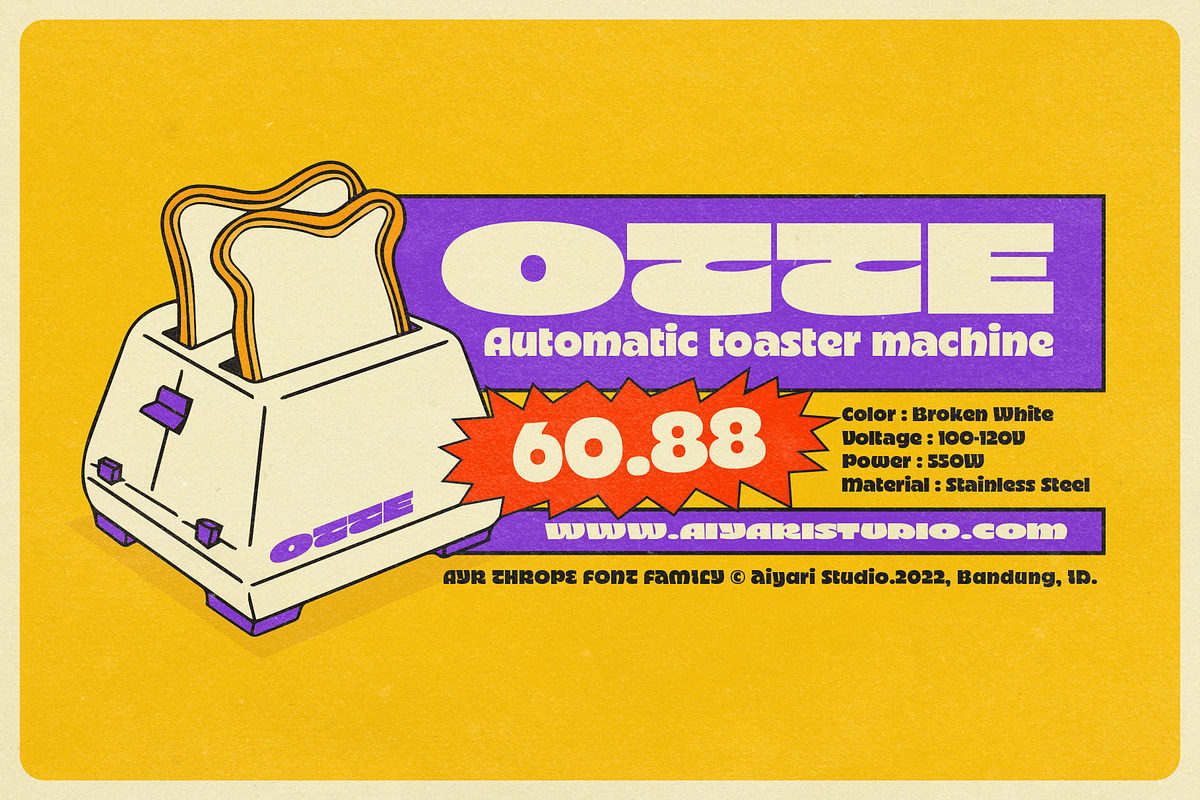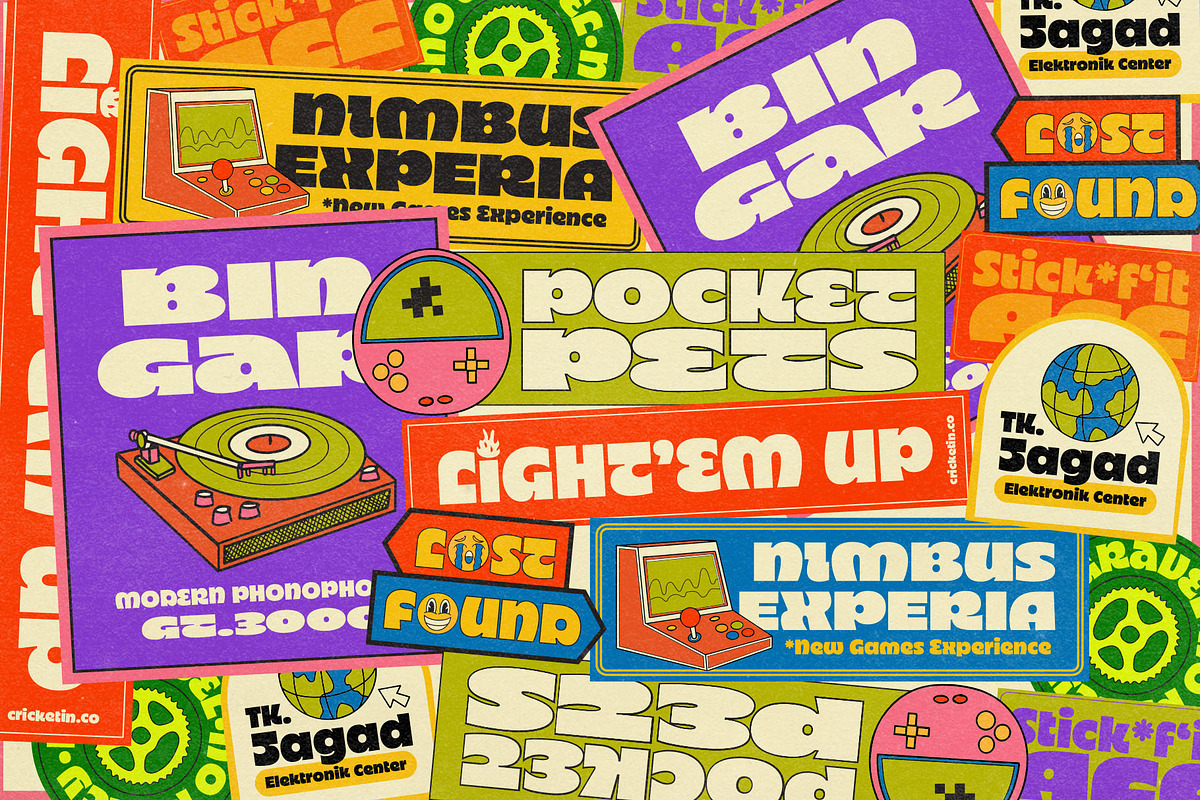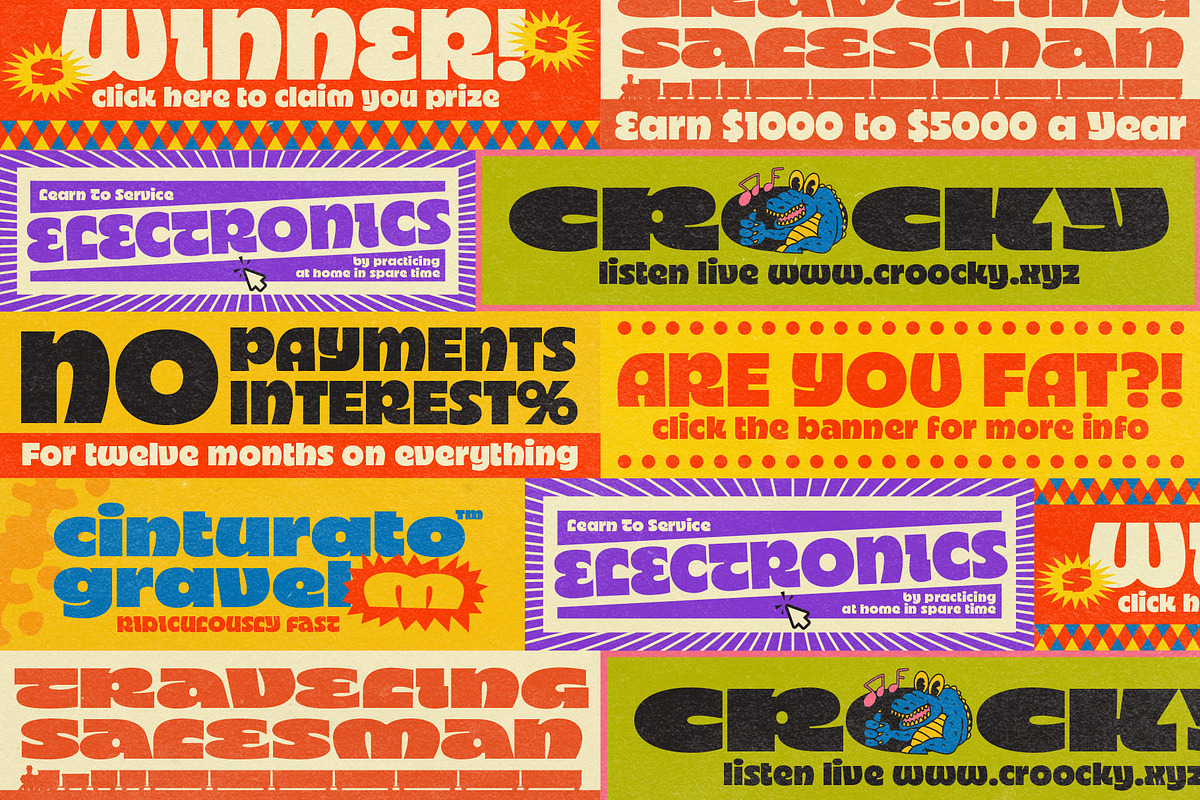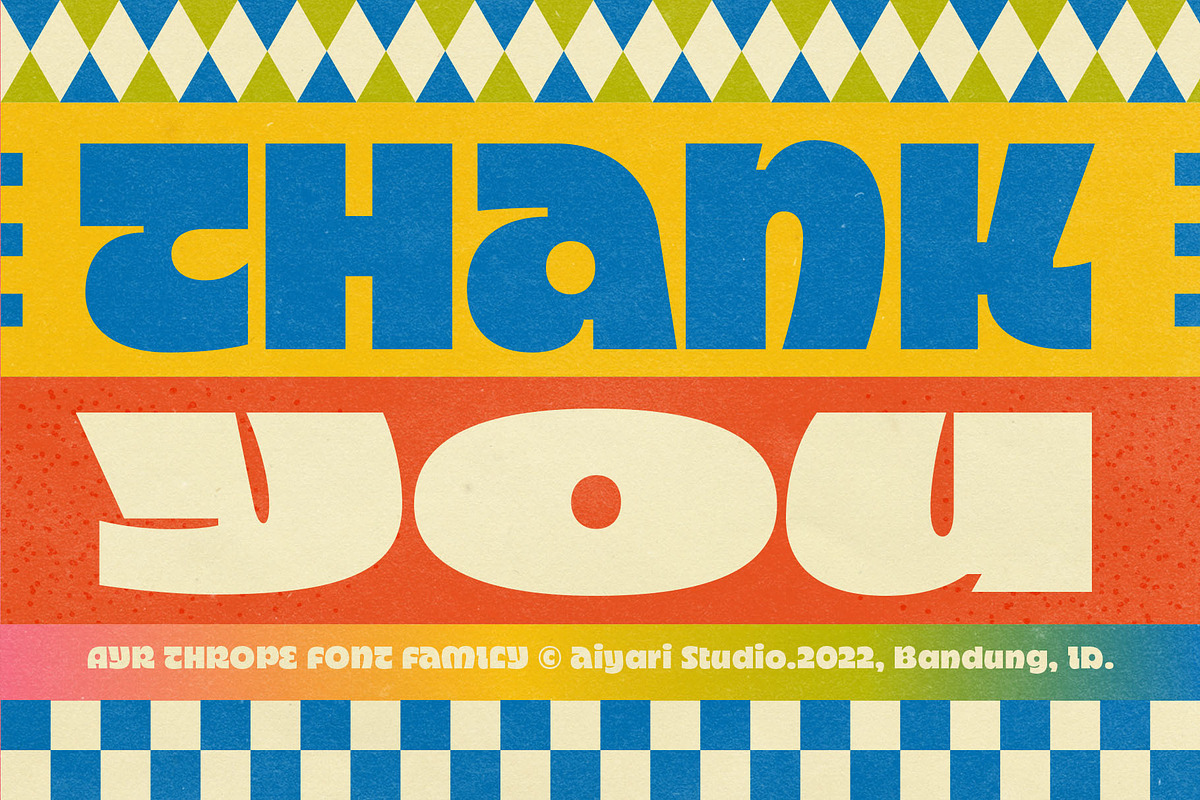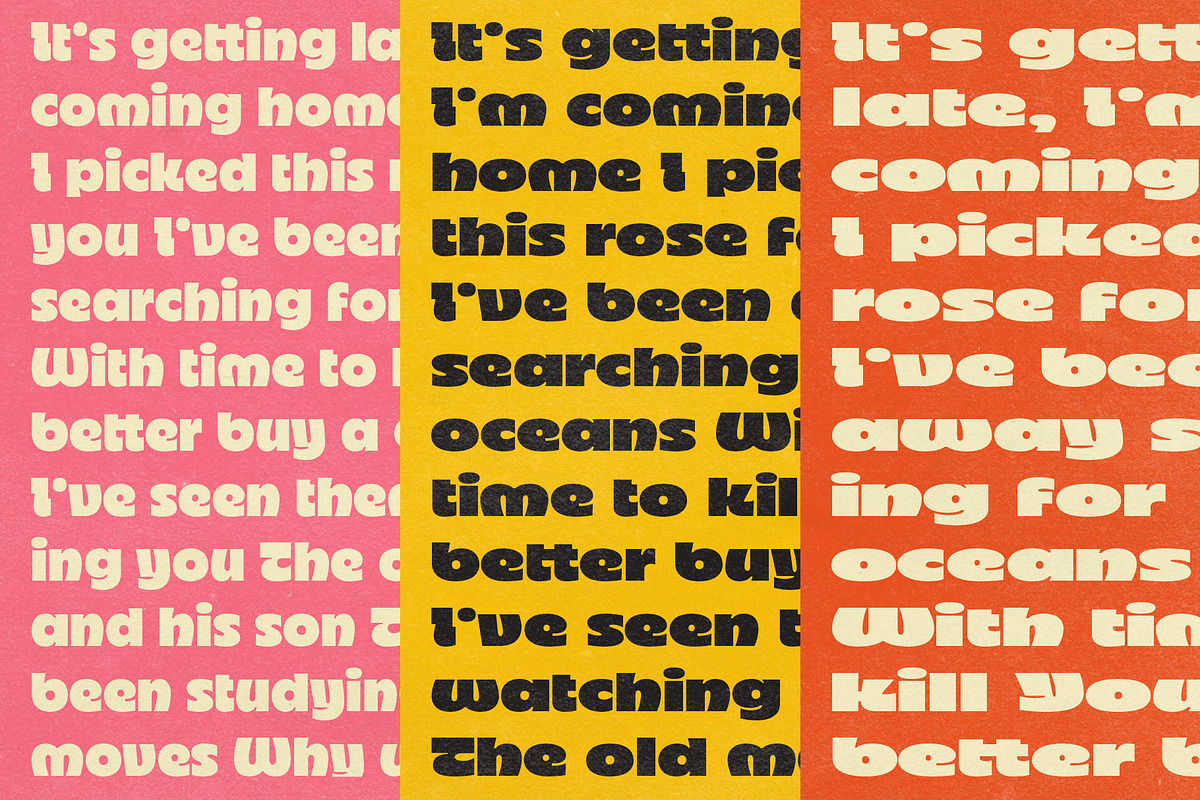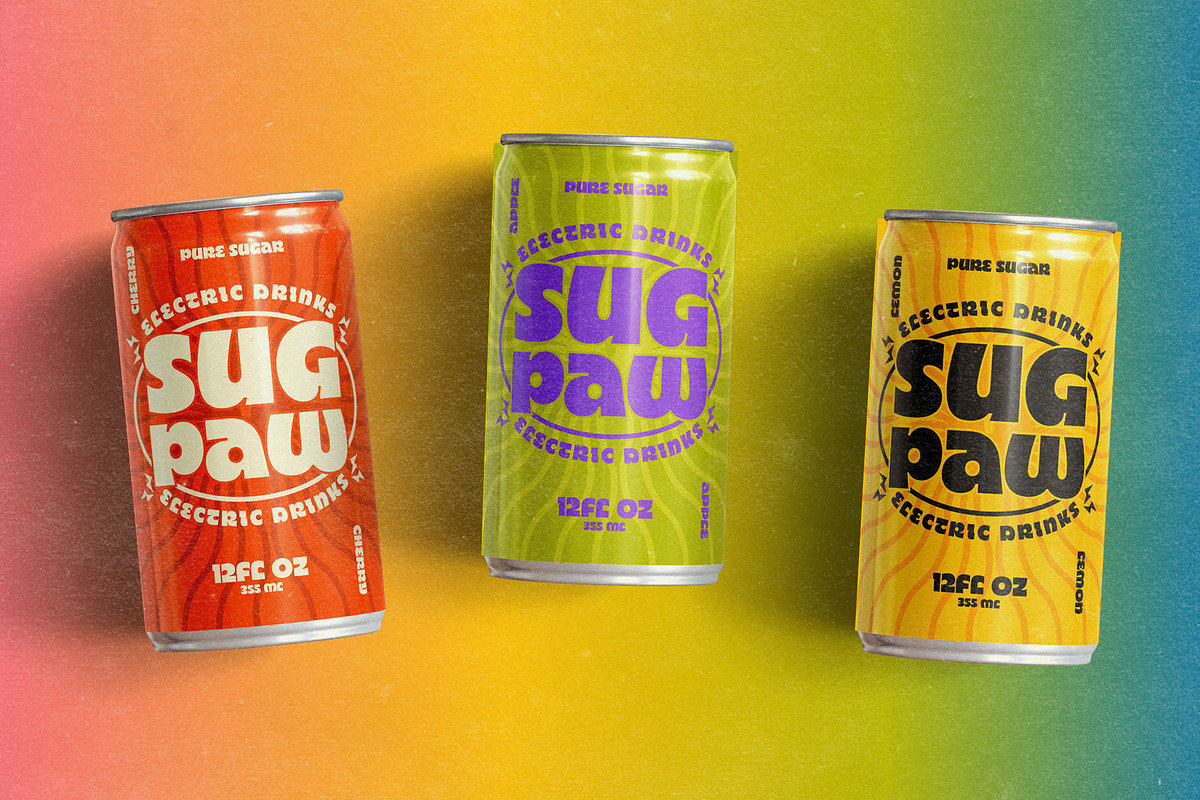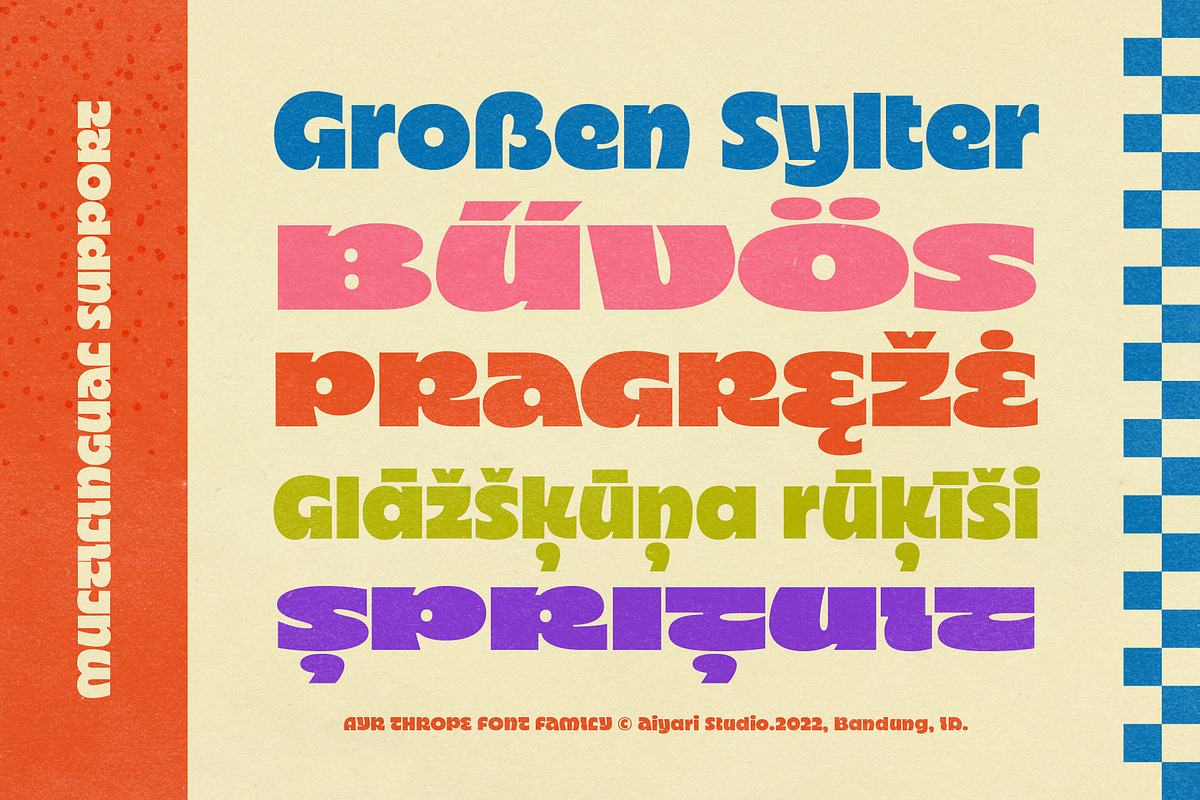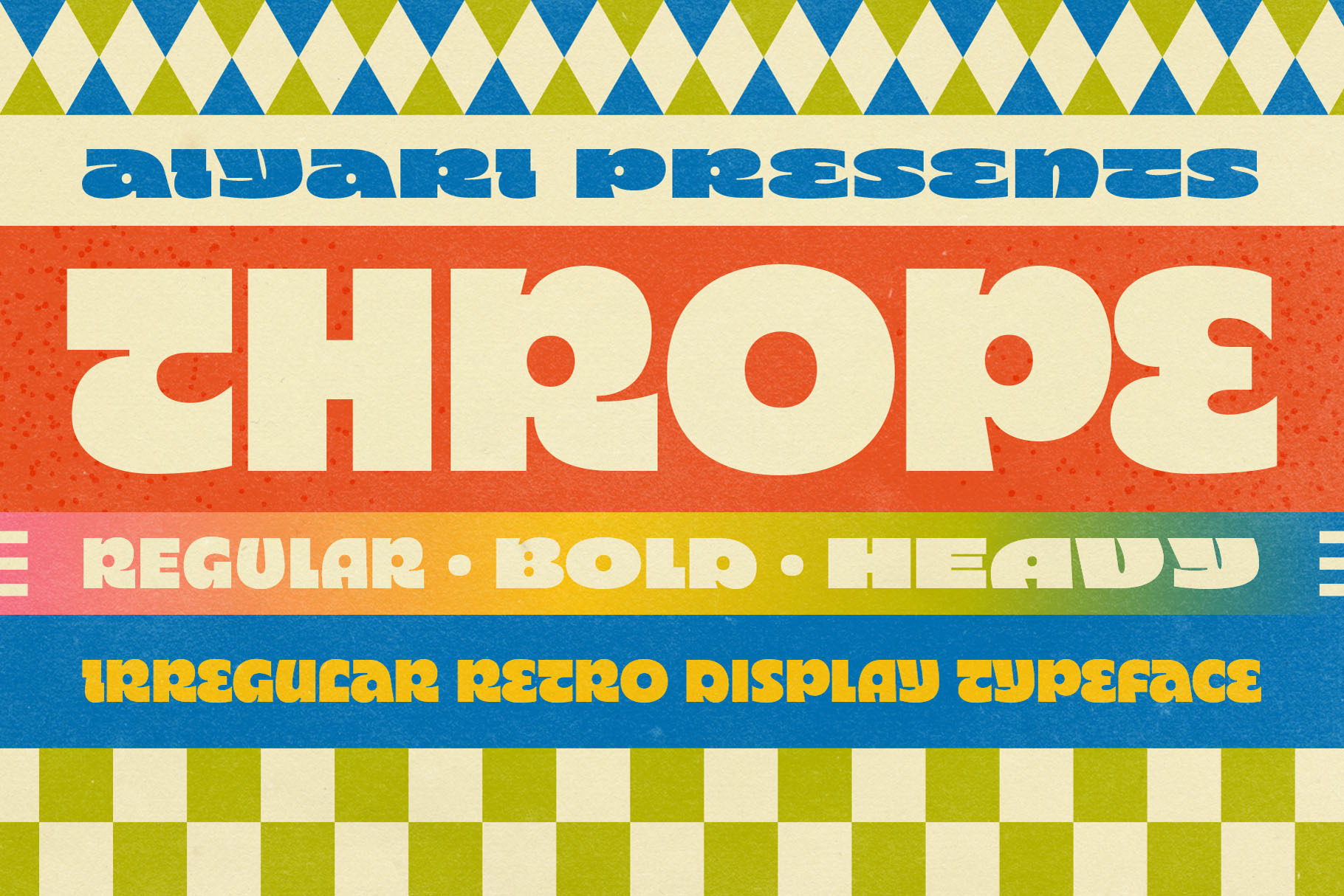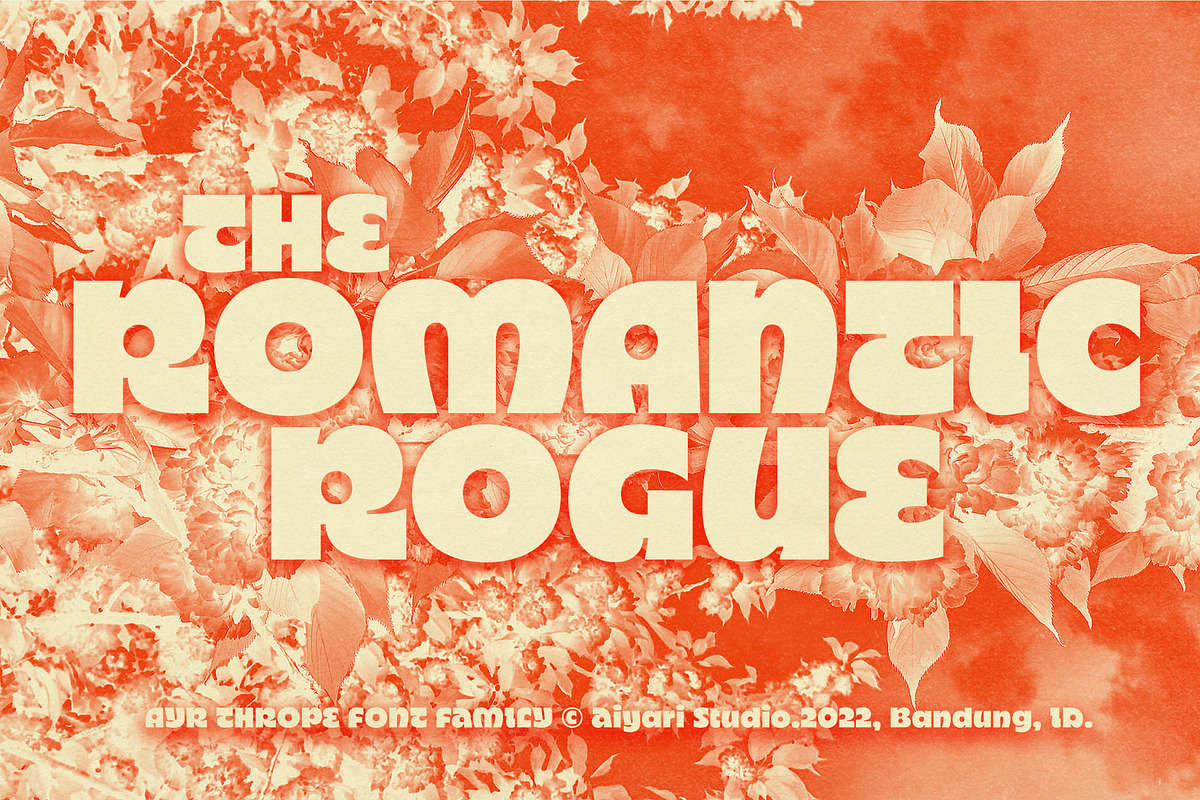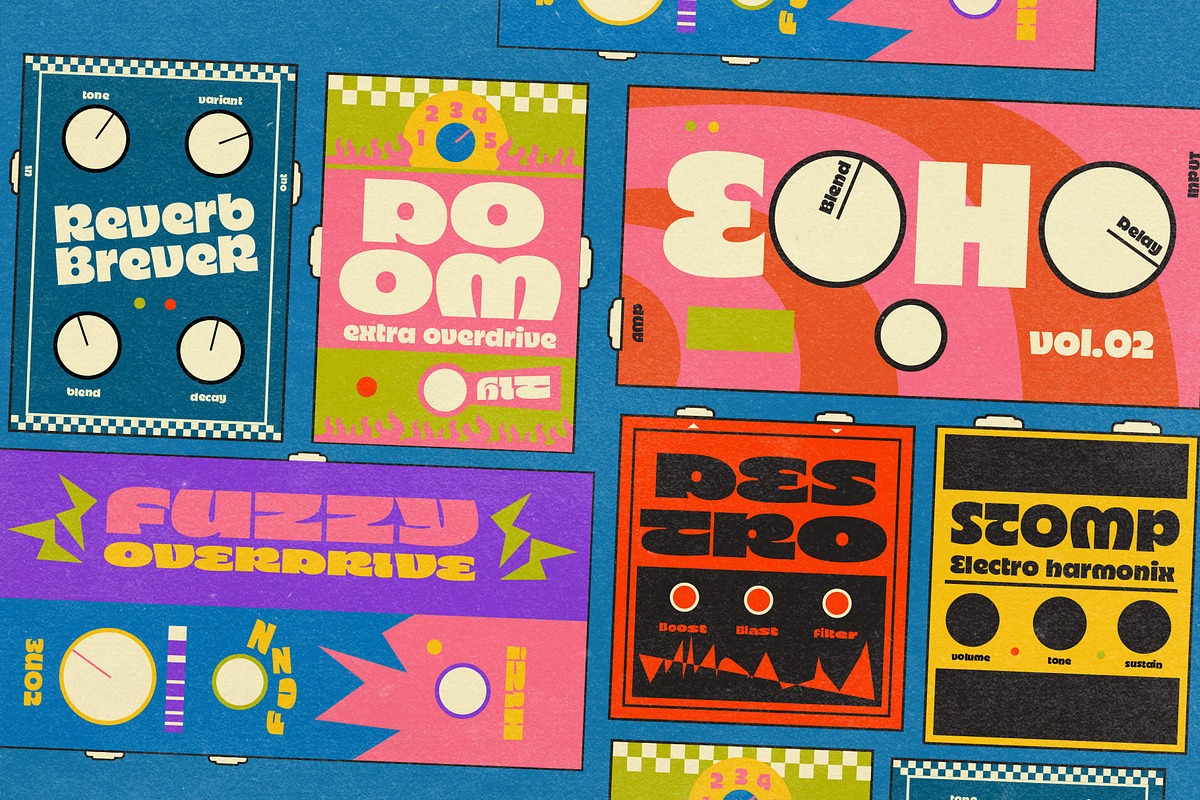
Thrope Font Family
Introducing Thrope The Irregular Retro Display Font Family. Heavily influenced by Motter Ombra typeface, geometric basic shape, and 60s to 70s pop culture. Thrope typeface includes 3 font families (regular, bold, and heavy). It comes with stylistic alternates 01-04 & ligatures.
Thrope font family best used for logotype, headline, header, signage, apparel design, invitation, poster, flyers, greeting cards, packaging, book cover, printed quotes, cover album, movie, & etc